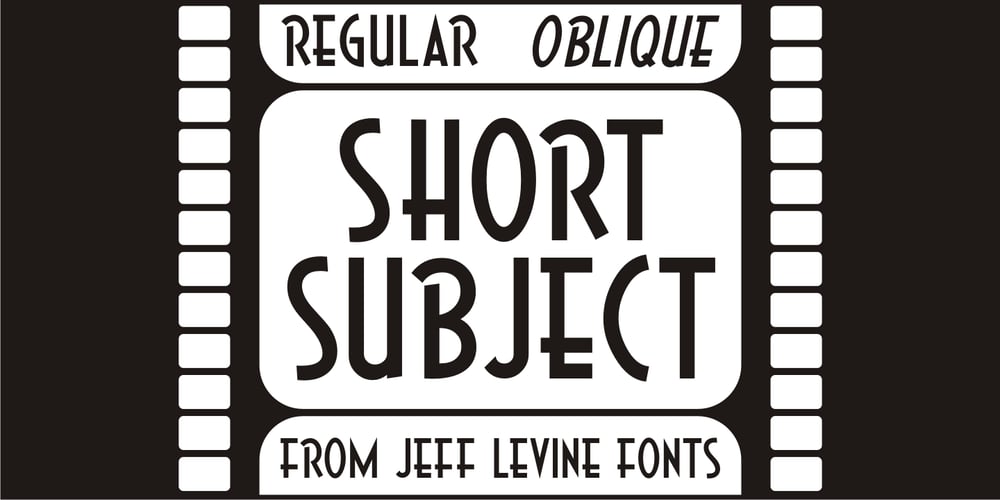
Short Subject JNL
Short Subject JNL font
Short Subject JNL Font Family was designed by Jeff Levine and published by Jeff Levine. Short Subject JNL contains 2 styles and family package options. Loosely based on some hand-lettered title cards from various vintage Columbia Pictures two-reel comedies, Short Subject JNL is a pleasant sans serif typeface that is aptly suited for titling and other similar applications.